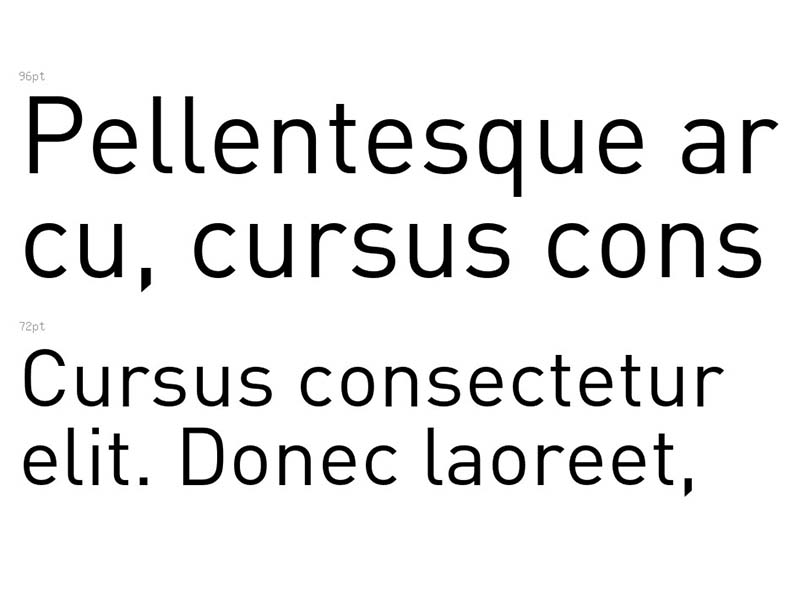
For commercial use, please go to. It is characterized by a clean, modern, and geometric look. Din ot medium version 7.601, build 1030, fops, fl 5.04 font (font family name:
Dinot font was developed and published by albert jan pool. Check out examples of the dinot regular font at azfonts. Build 1027 font (font family name: